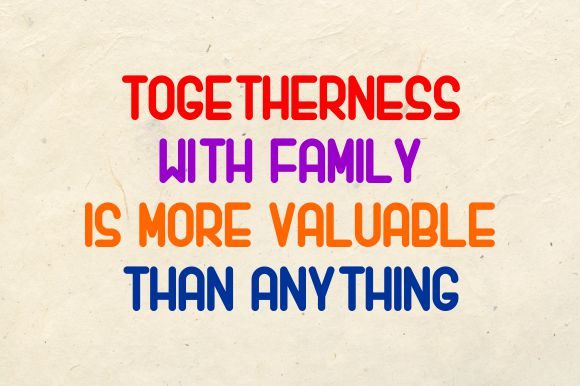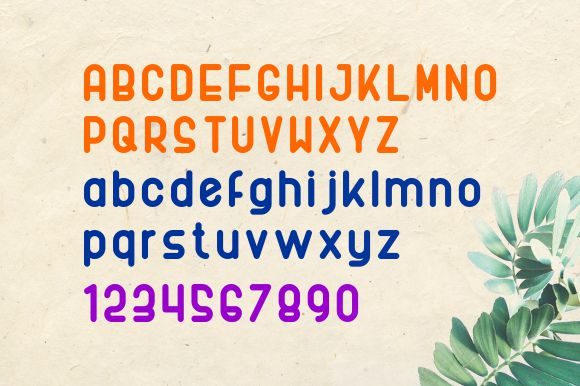
Crafting the Perfect Design with Dadung Font
Have you ever been brainstorming a design idea, only to be stuck on the perfect font to bring it to life? You know, that moment when you see it all come together in your head, but the execution just isn’t quite right? That’s where the magic of Dadung Font comes in – a cute display font that adds a touch of sophistication to any design.
With its minimalist feel, Dadung Font is perfect for designers looking to create a smart and modern look without sacrificing the charm. Whether you’re working on a branding project, creating a social media campaign, or designing a website, this font is sure to elevate your design to the next level.
What sets Dadung Font apart is its versatility – it’s perfect for adding a touch of whimsy to a children’s book or a bold statement to a fashion campaign. With its unique blend of style and simplicity, Dadung Font is a valuable addition to any designer’s toolkit.
Dadung Font Key Features
- Font Family: Dadung is a sans-serif font family designed for digital use, available in multiple weights.
- Size: The font family includes a range of font sizes, from 100 to 900, allowing for precise control over text scaling.
- Resolution: Dadung Font is designed for high-resolution displays, making it suitable for use in digital media, including print, web, and screen.
- Unique Characteristics: Dadung Font features a distinctive rounded edge design, making it easily readable and visually appealing in a variety of contexts.
- Language Support: Dadung Font supports a wide range of languages, including Latin, Cyrillic, and Greek scripts.
Dadung Font Review
Overall, I was pleasantly surprised by Dadung Font. It’s a bold, playful font that’s perfect for adding a touch of whimsy to your designs. ✨ I love the unique character it brings to the table, and it’s great for titles, headings, and other display text.
Here are some things that Dadung Font does well:
- ✨ Unique and playful design that adds character to your designs
- ✨ Great for titles, headings, and other display text
- ✨ Works well in both digital and print designs
- ⚠️ May not be suitable for body text, as it can be difficult to read in large blocks
- ⚠️ Can be overwhelming if used too extensively, so be sure to use it sparingly
- ⚠️ Limited language support, which may be a concern for global brands
Overall, I’d give Dadung Font 4 out of 5 stars. It’s a fun and versatile font that’s perfect for adding a touch of personality to your designs. Just be sure to use it thoughtfully and in moderation to get the best results.
Tips for Getting the Most Out of Dadung Font
Here are a few tips to help you get the most out of Dadung Font:
- Use it for titles and headings to add a touch of elegance.
- Combine Dadung Font with other fonts for a unique and eye-catching design.
Dadung Font is perfect for:
- Brand logos and marketing materials.
- Restaurant menus and food packaging.
Alternatives to Dadung Font
Great Vibes is a beautiful, handwritten font perfect for creative and artistic projects. It features a mix of elegance and playfulness, making it suitable for headings, titles, and quotes. When to use: For projects that require a touch of whimsy and personality.
Comparison: Great Vibes Font is more elegant and refined compared to Dadung Font’s bold and playful style. It’s ideal for projects that need a more sophisticated look.
Alex Brush is a elegant and cursive script font that works well for invitations, quotes, and other creative projects. It features a smooth and flowing design that adds a touch of sophistication to any project. When to use: For projects that require a luxurious and high-end feel.
Comparison: Alex Brush Font is more refined and elegant compared to Dadung Font’s bold and playful style. It’s ideal for projects that need a more upscale look.
Pacifico is a beautiful, modern script font that features a mix of elegance and playfulness. It’s perfect for creative and artistic projects, and works well for headings, titles, and quotes. When to use: For projects that require a touch of sophistication and creativity.